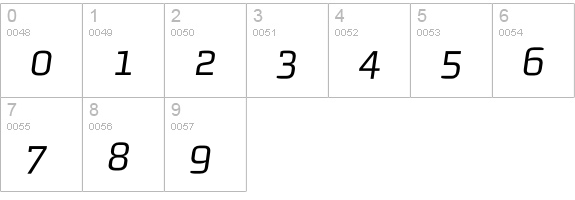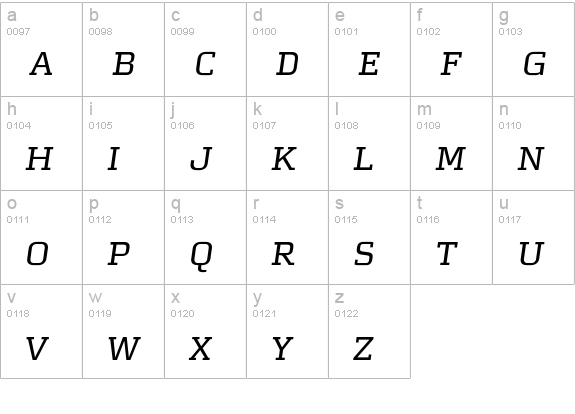
The MorganAvec ItalicExpert font is a stylish and sophisticated typeface that exudes elegance and charm. Its sleek and slanted design adds a touch of modernity to any project, making it perfect for both professional and creative use. The flowing curves and unique letterforms of MorganAvec ItalicExpert make it stand out from the crowd, giving your designs a distinctive edge. What's even better is that MorganAvec ItalicExpert is available for free download at FontsMarket.com. This means you can easily add this exquisite font to your collection without breaking the bank. So why wait? Enhance your designs with the beauty and versatility of MorganAvec ItalicExpert today!